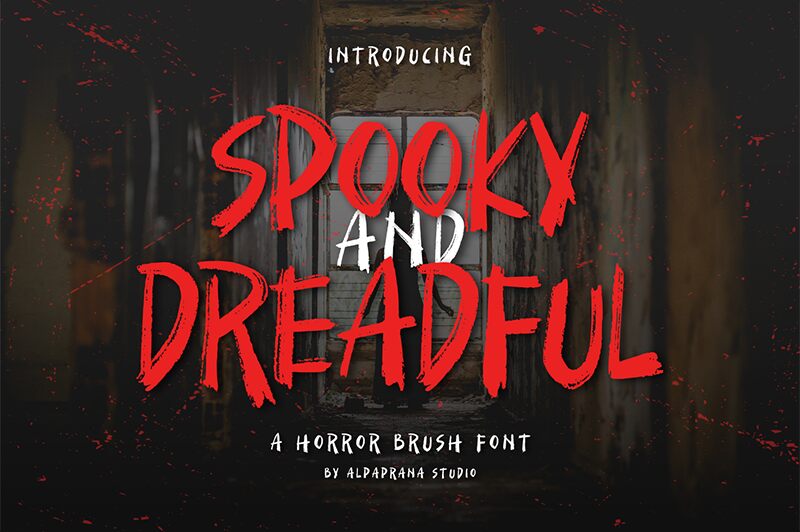
Spooky And Dreadful, created by Alpaprana Studio, is a captivating brush font that exudes an eerie and terrifying vibe. Its unique style makes it ideal for a wide range of projects.
Use it to create striking branding and logo designs that will leave a lasting impression on your audience. The font is also perfect for lettering and logotype projects, adding a spooky touch to any text. Its versatility extends to clothing design, where it can be used to create hauntingly beautiful graphics for t-shirts and shopping bags. Additionally, Spooky And Dreadful is an excellent choice for poster design, magazine layouts, packaging designs, book covers, photography enhancements, and special events decorations.
Let your imagination run wild with this hair-raising font!